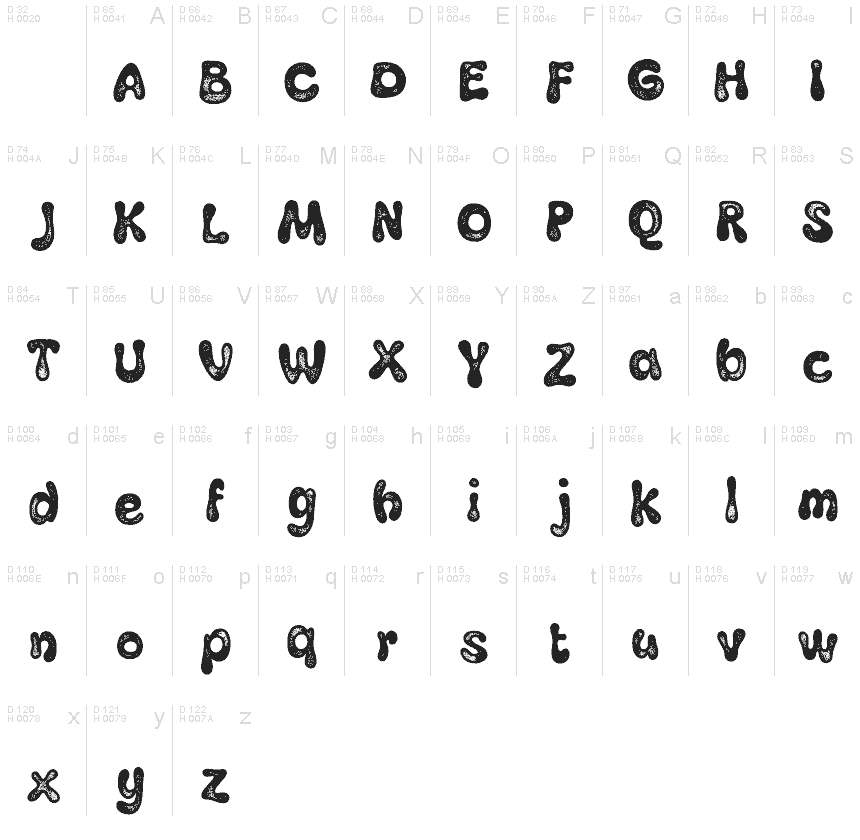
Boyers Vintage Demo Stamp
Boyers Vintage Stamp font by Craft Supply Co is a cartoon display type with an eroded hand-drawn feel. The retro decorative style gives it a nostalgic playful, yet textured aesthetic that recalls the effects of time and wear. This free font contains hole-like shapes within each character for a unique design balanced between light and dark shades.